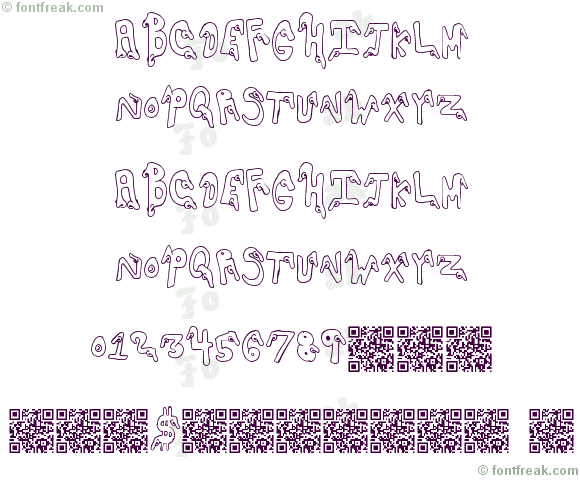
Noses
About Noses
Noses is a unique display font designed by Xerographer Fonts, released in 2013. This font stands out with its playful and whimsical character, making it ideal for creative projects that require a touch of personality. Noses falls within the decorative font category, characterized by its bold, rounded shapes and distinctive, exaggerated features that resemble, as the name suggests, noses. The stroke weight is consistent, providing a sturdy yet friendly appearance, while the spacing between the letters is thoughtfully designed to ensure readability without sacrificing style.
The Noses font is versatile, making it suitable for various applications. It shines in contexts such as wedding invitations, where its lightheartedness can add charm. It can also enhance movie posters, particularly for comedies or family films, creating an approachable and fun atmosphere. Additionally, restaurant menus can benefit from the font’s quirky aesthetic, appealing to diners looking for a unique dining experience. Content creators will find Noses effective for social media graphics, where attention-grabbing typography is key to engagement, and it can even enhance branding for small businesses seeking to convey a playful image.